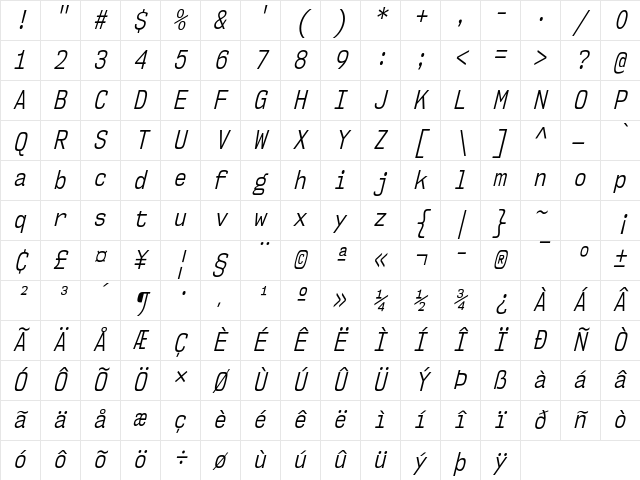
NK57 Monospace Condensed Book Italic
Style: Condensed Book Italic
Complete NK57 Monospace Condensed Book Italic glyph index. Displaying only characters natively supported by NK57 Monospace Condensed Book Italic font.
Design Context for NK57 Monospace
NK57 Monospace uses fixed-width spacing throughout, giving it the structured, systematic character associated with coding environments and technical documentation. The slanted form adds forward momentum and visual energy.